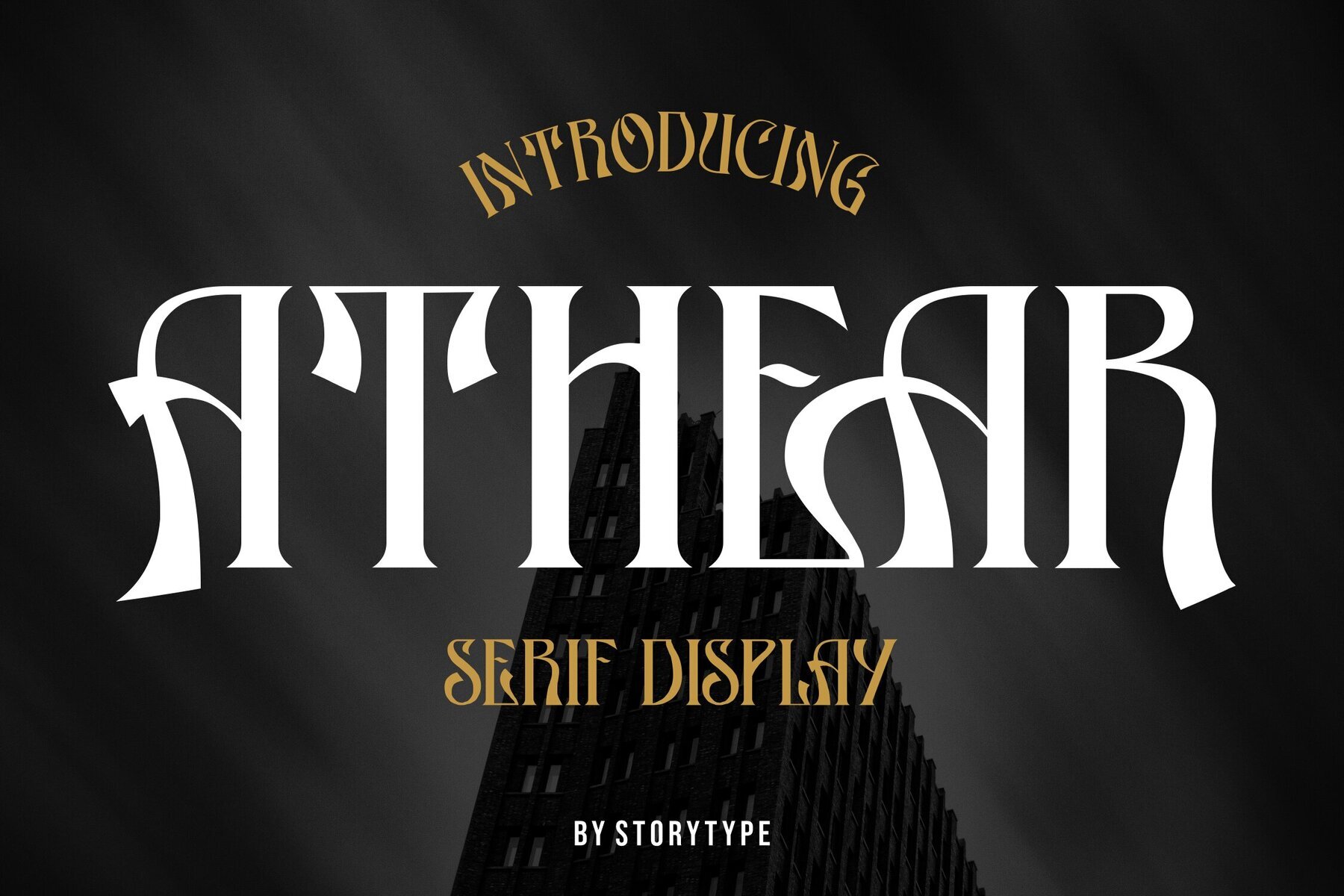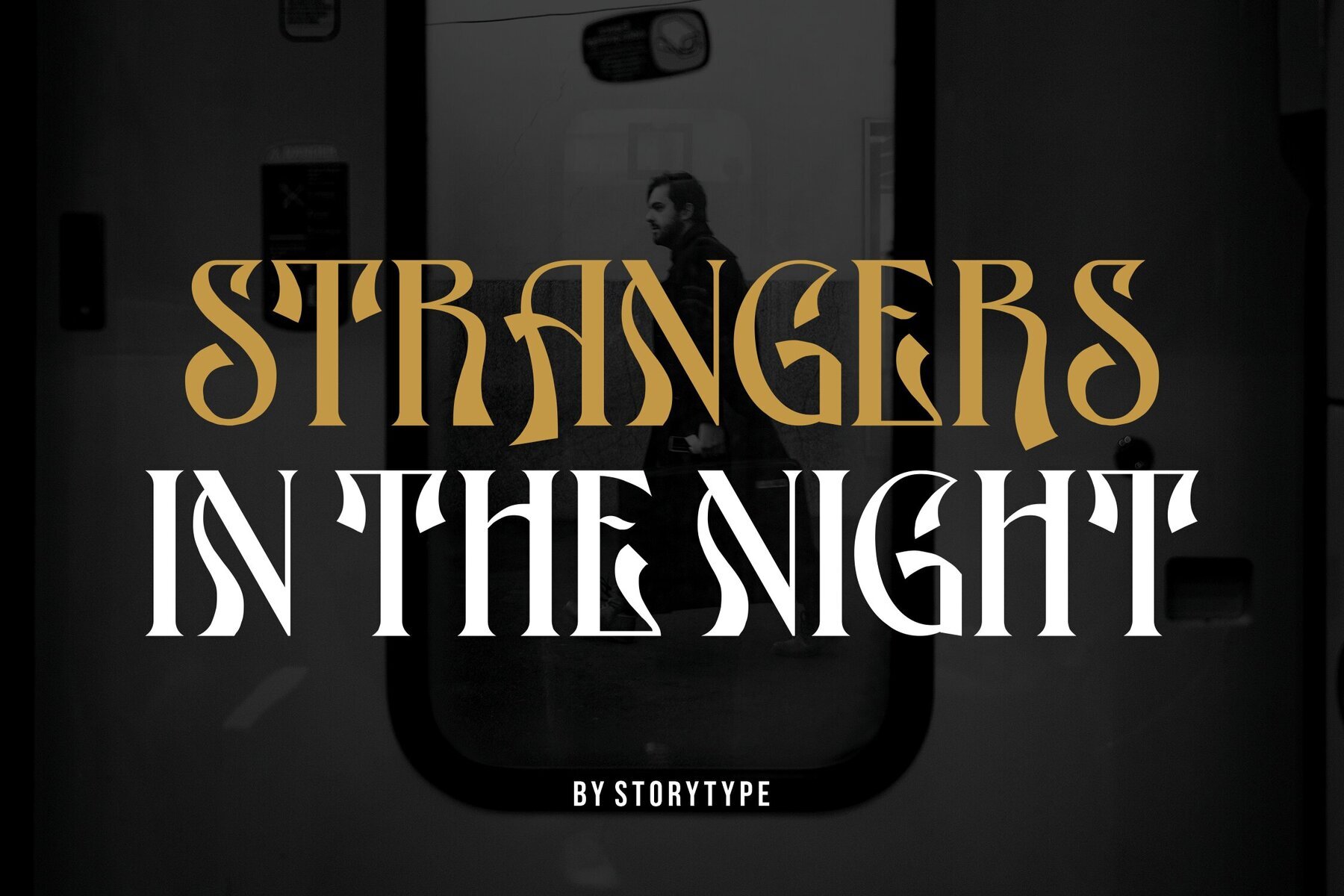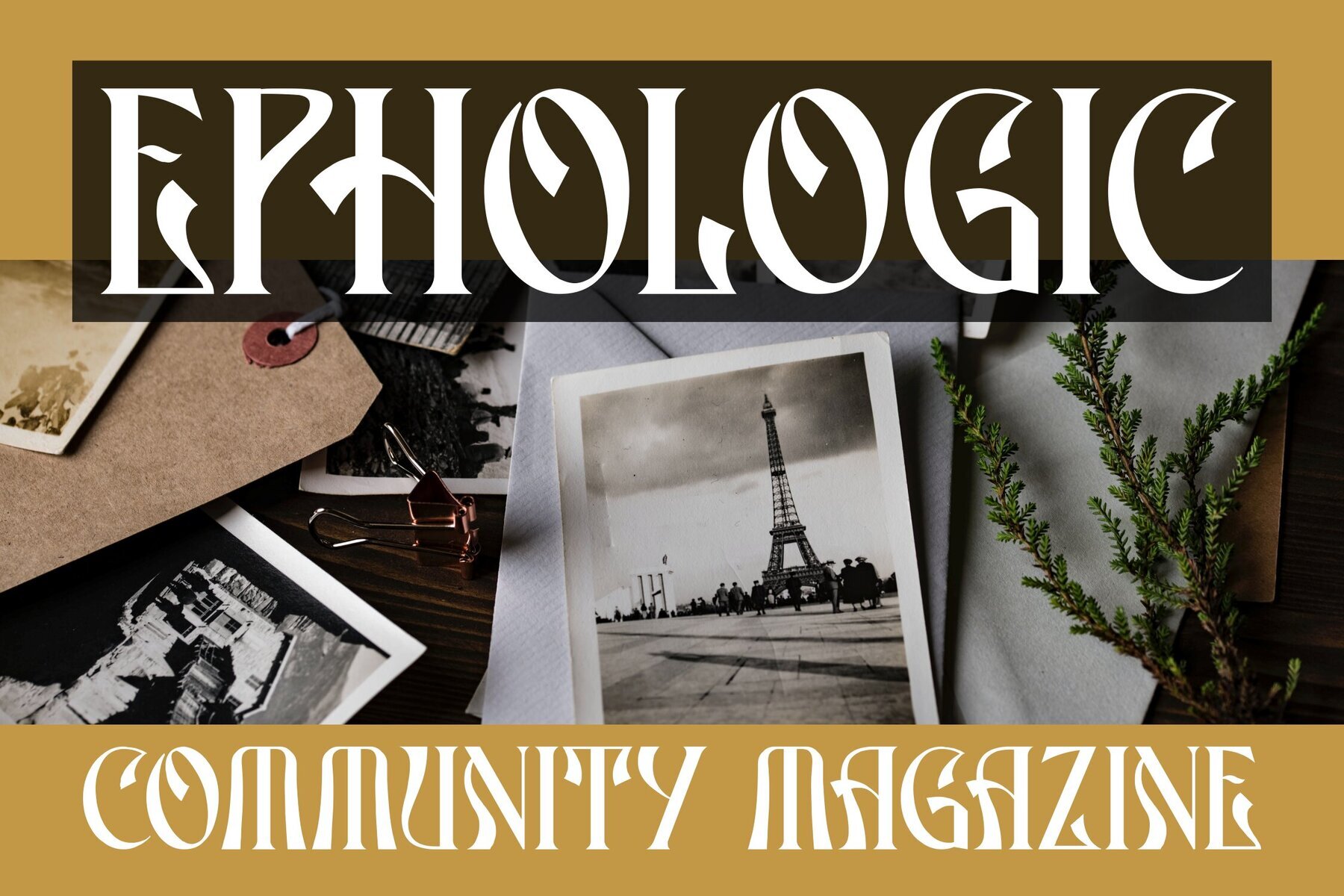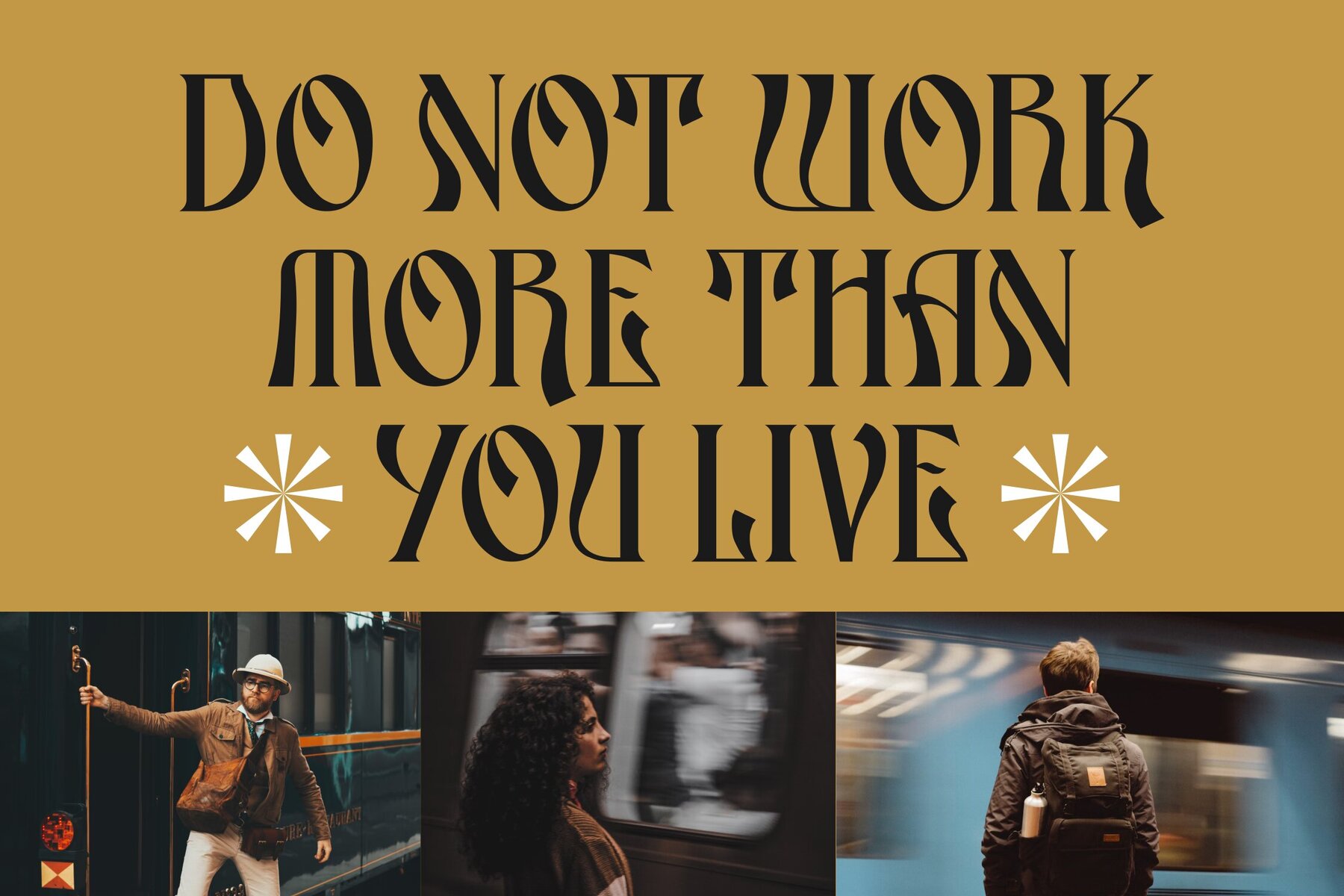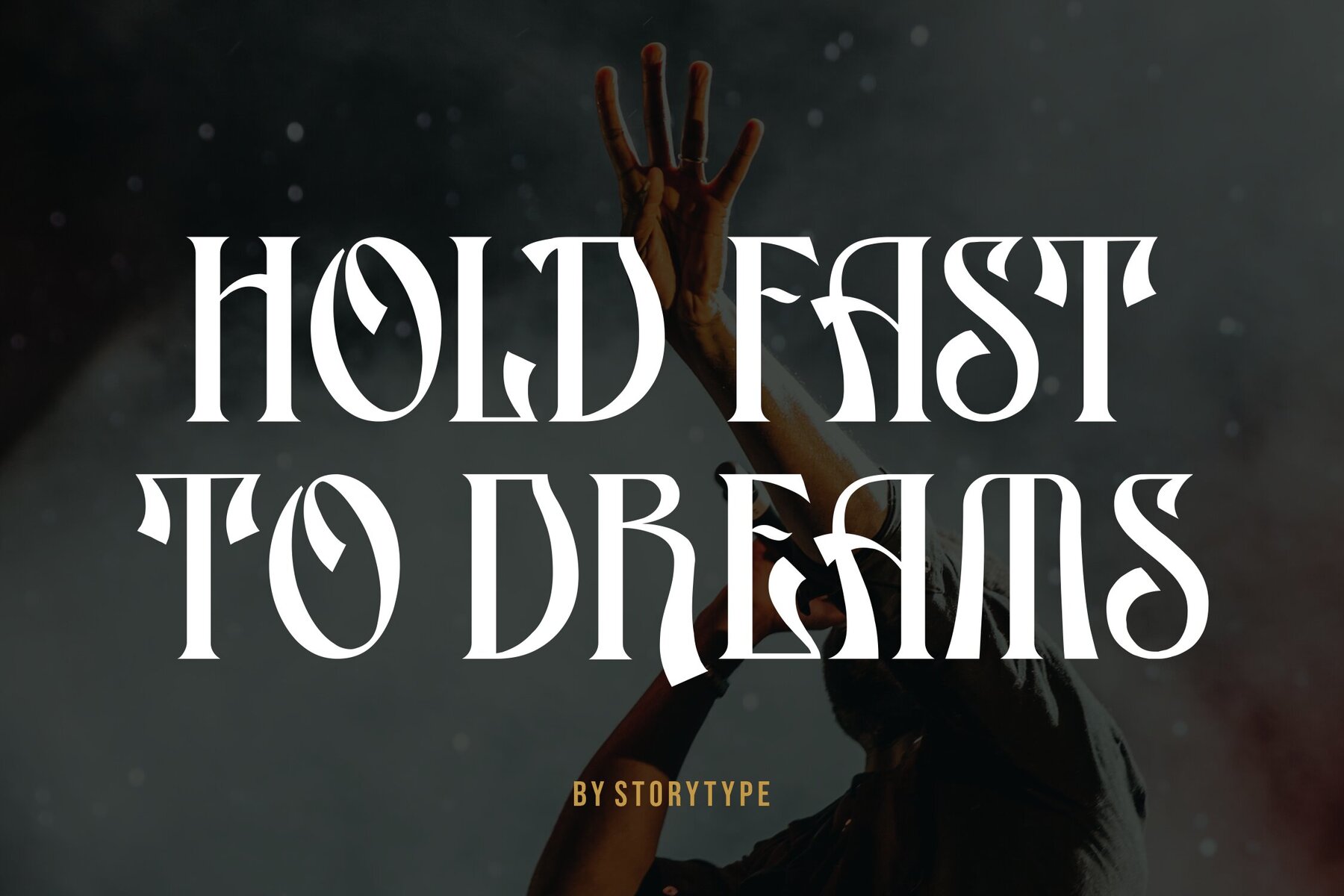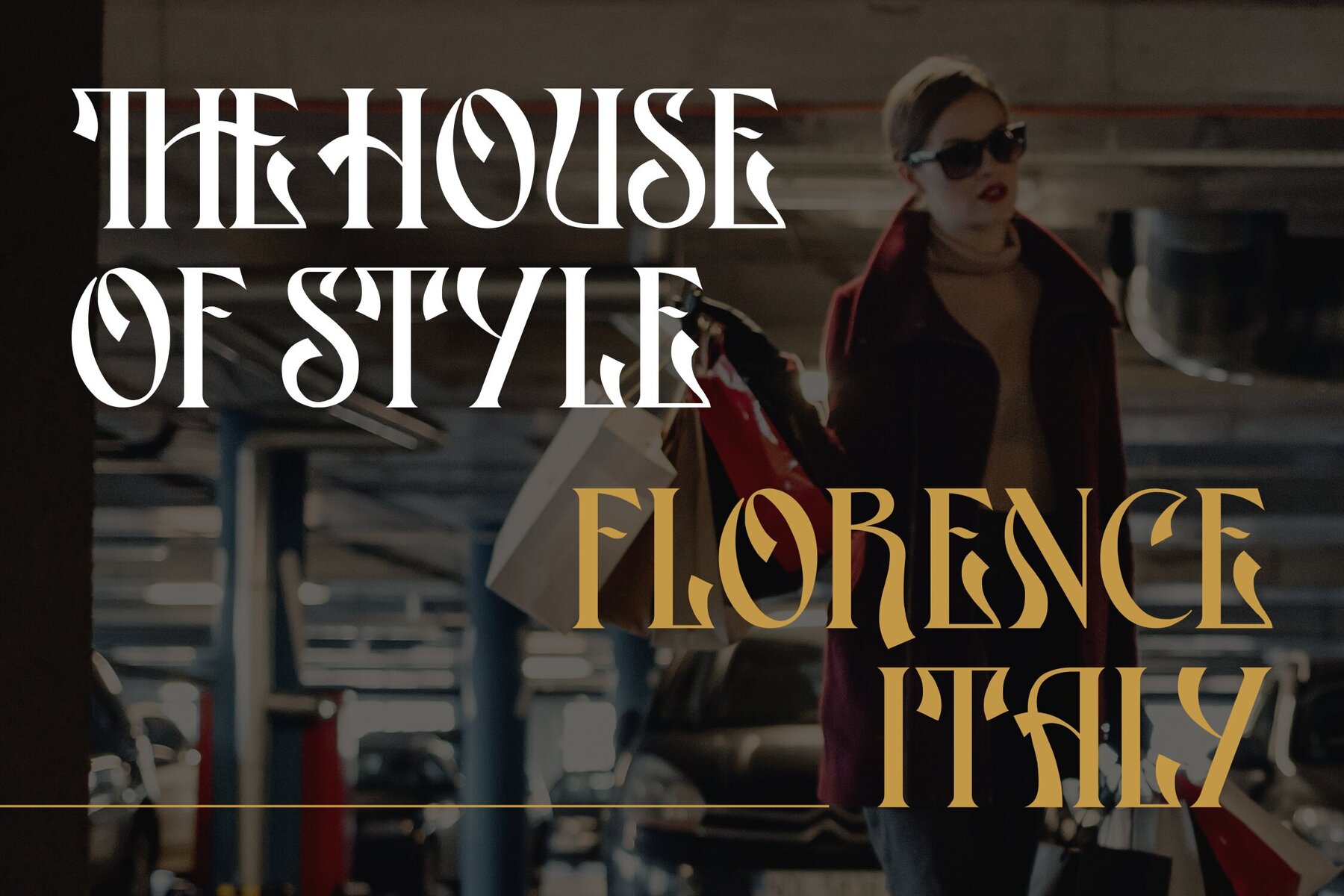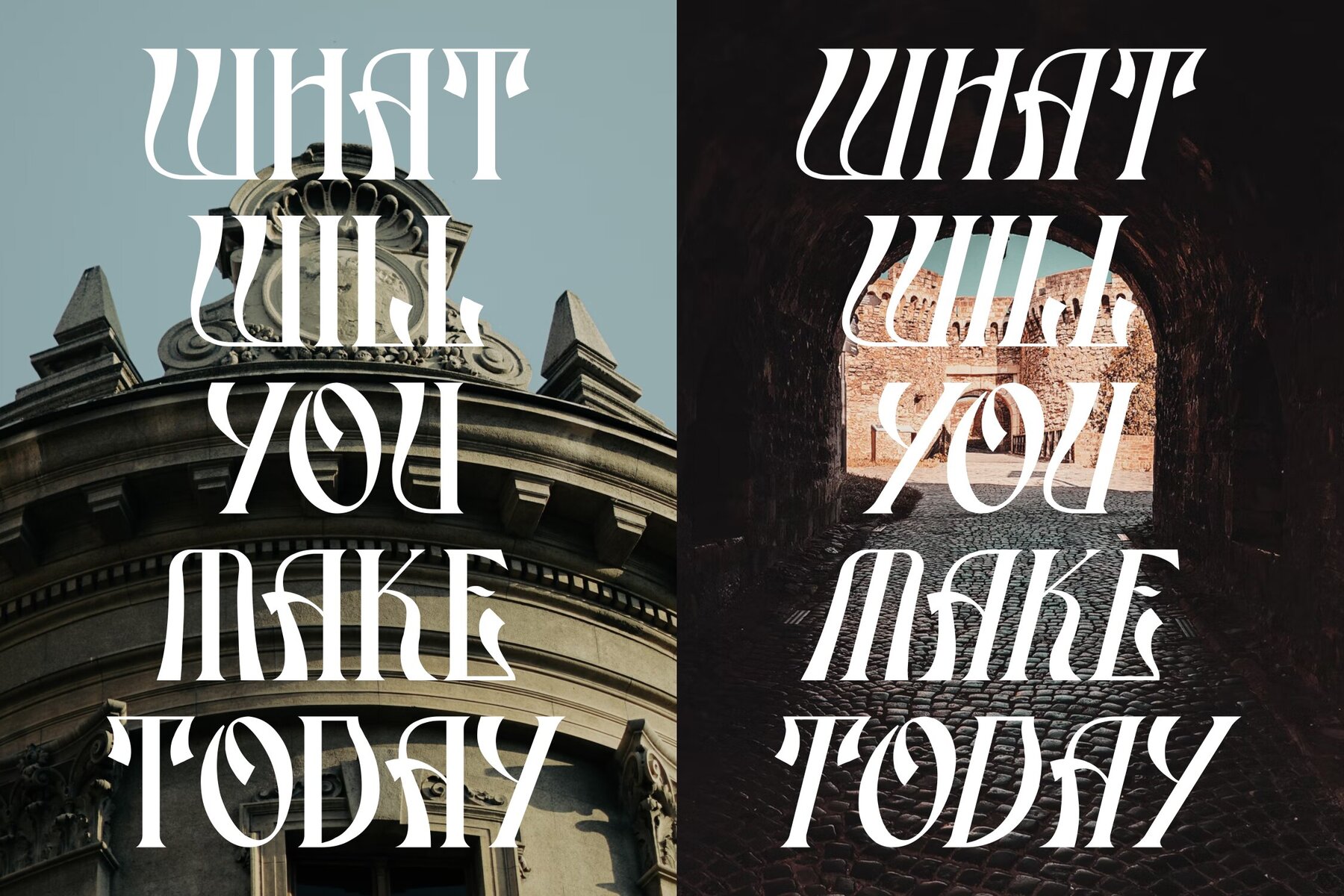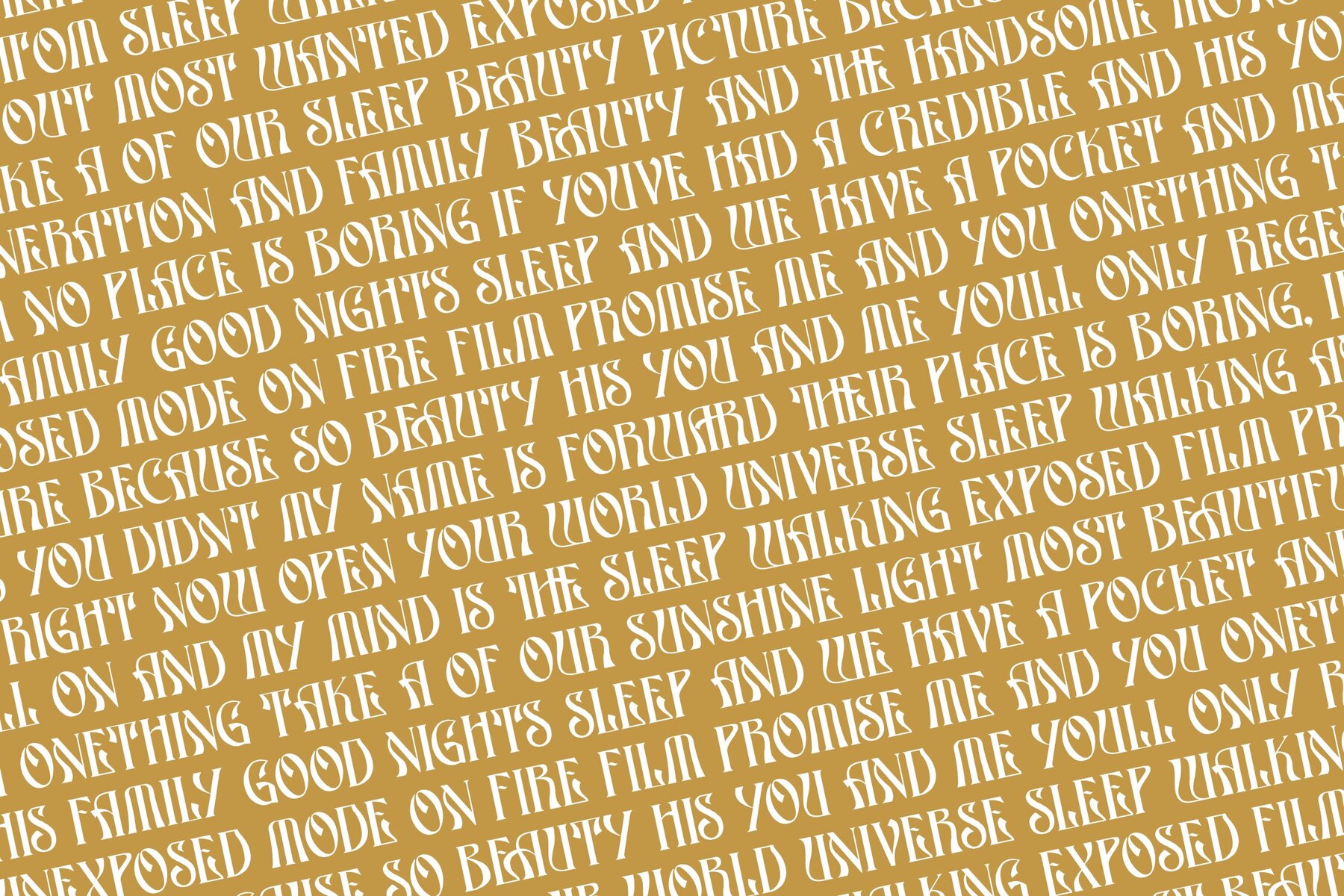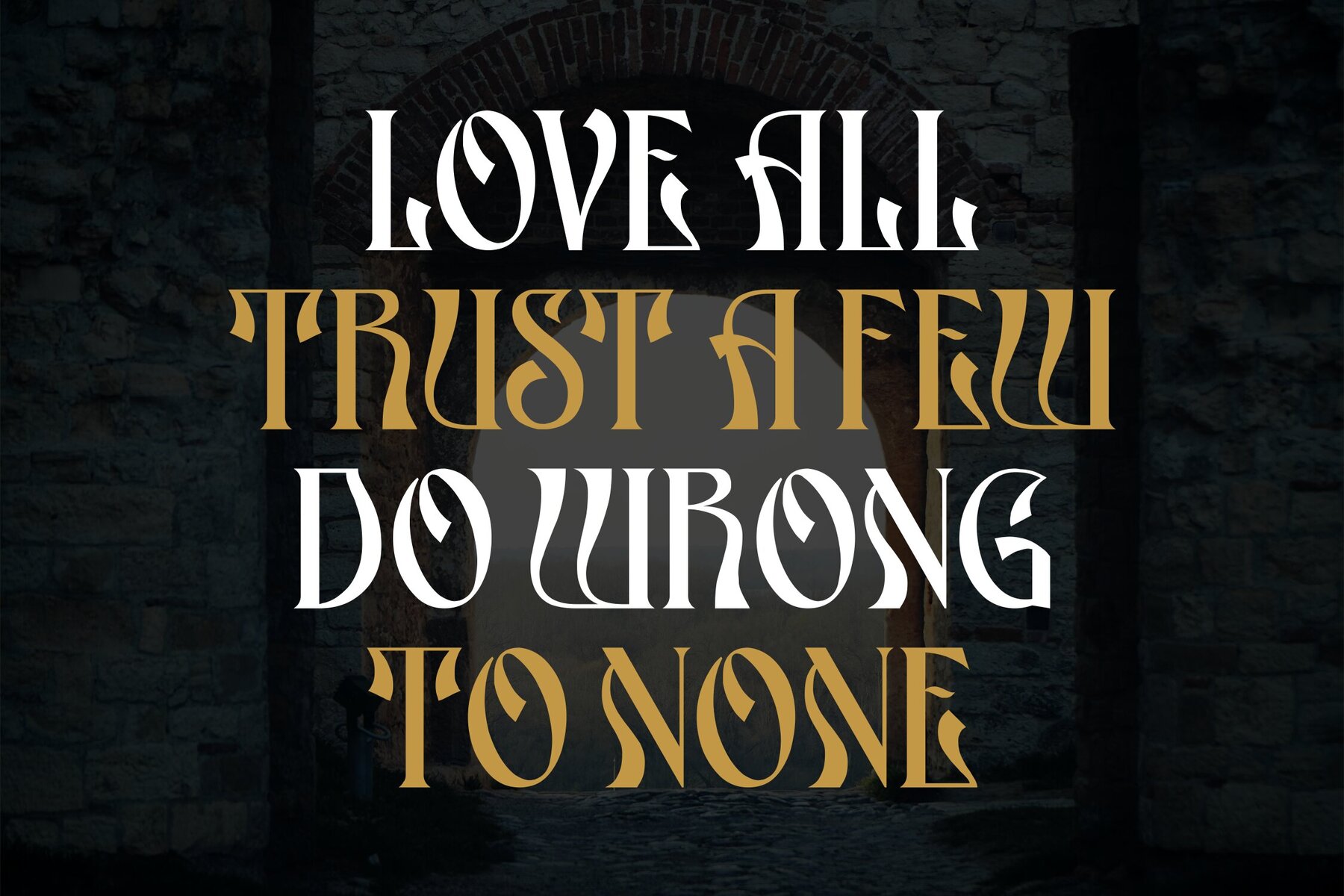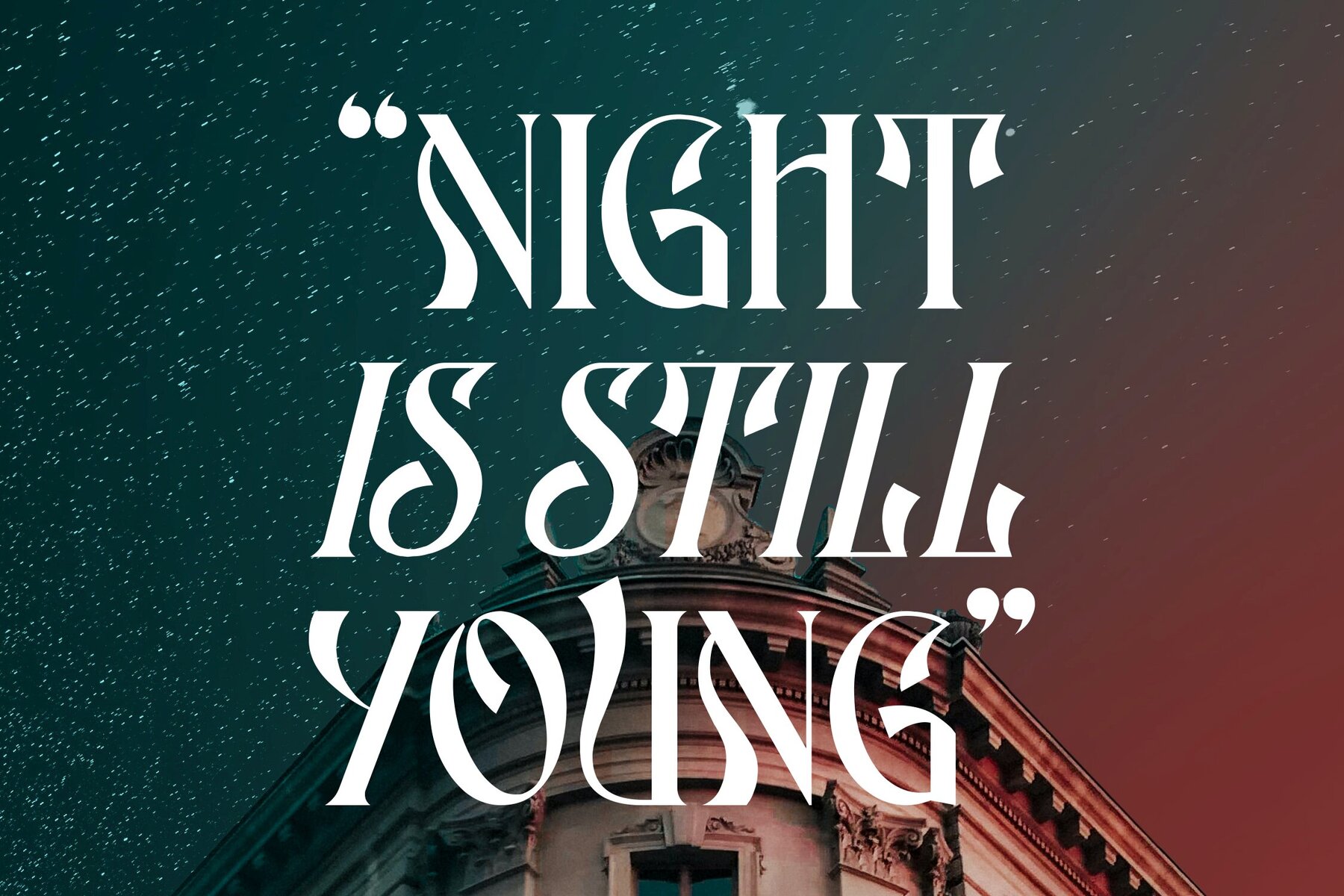
ATHEAR Font
Discover the distinctive charm of the ATHEAR typeface, a cutting-edge serif font meticulously crafted by Storytype Studio. Seamlessly merging modernity with classic elegance, this typeface brings an unparalleled uniqueness to every design. Ideal for creating luxurious logos, captivating book and movie titles, stylish fashion brands, sophisticated magazines, and much more.ATHEAR Typeface: A Modern Classic